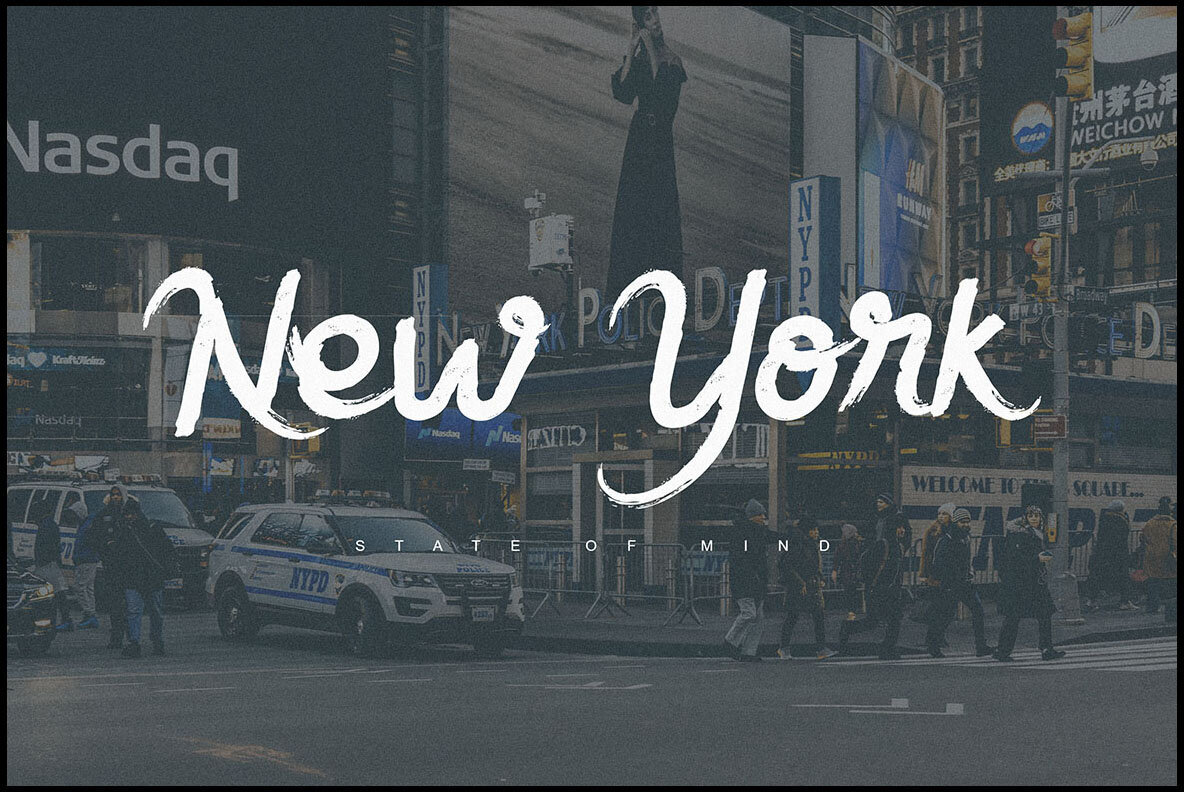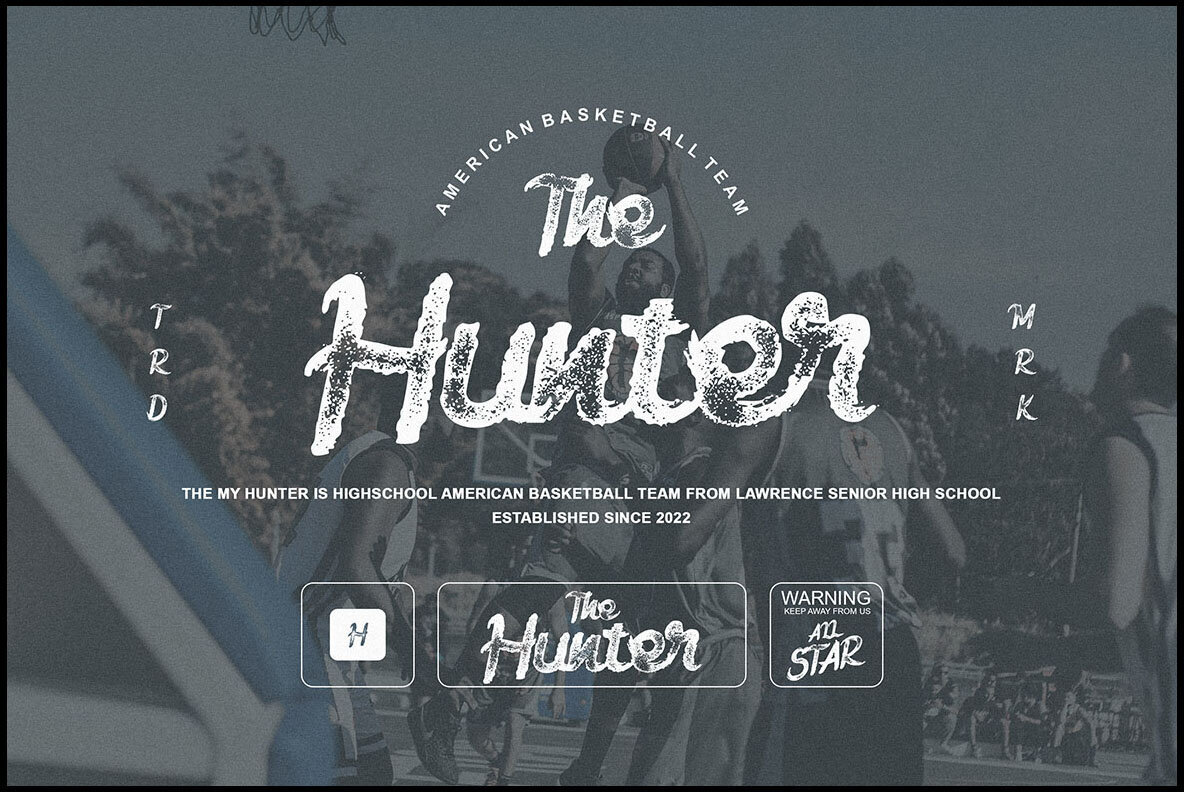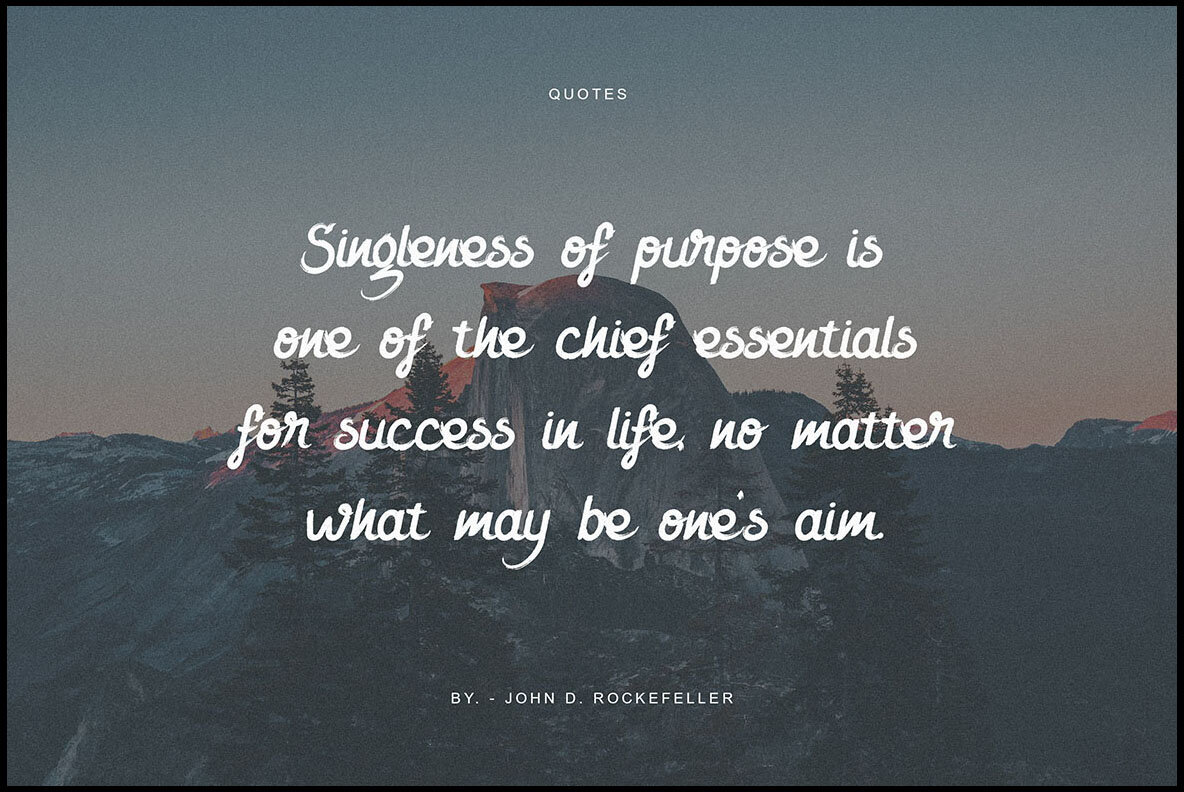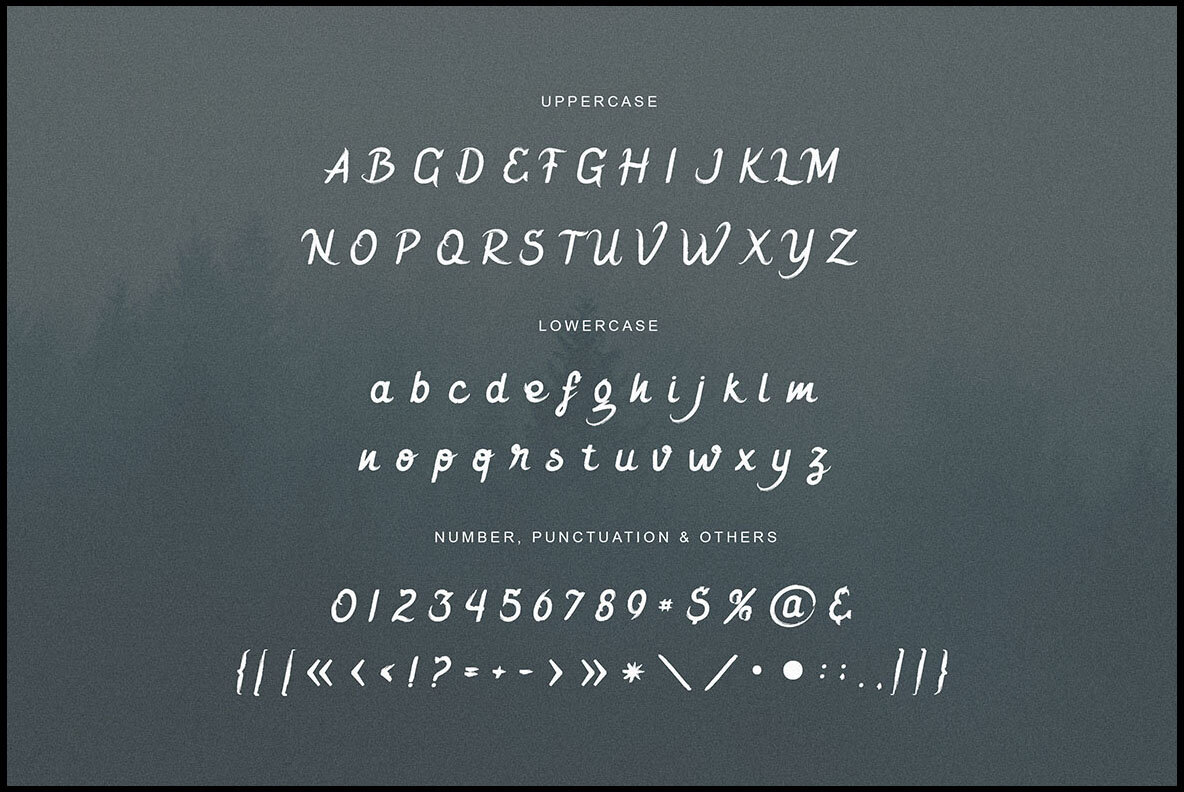
Rockstar Font
The Rockstar font family by Peter Olexa brings the essence of grunge, roughness, and street style to life. This freestyle and urban brush script font is ideal for enhancing your street style branding projects with a distinctive edge.Rockstar: Grunge and Urban Brush Script Font Collection